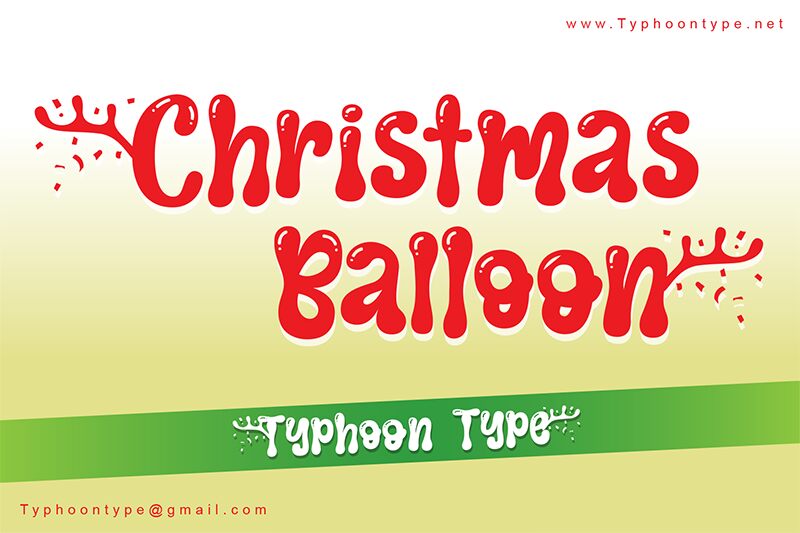
Christmas Balloon by Typhoon Type is a font that embodies the joy and excitement of the holiday season. Its bold style bursts with the charm of Christmas, offering a typographical twist that transforms text into an array of floating festive delights. Each character in this font boasts exaggerated proportions and playful shapes, reminiscent of balloons ready to soar high with holiday cheer.
Designed for those who wish to sprinkle their creative works with a dash of fantasy and fun, Christmas Balloon's lively appeal is perfect for seasonal advertising, eye-catching event invitations, or any project needing a touch of whimsy. Its suitability across digital and print mediums makes it versatile for designers aiming to infuse their work with a contemporary yet festive flair.
Incorporating Christmas Balloon into your designs promises to capture the hearts of audiences young and old. It's not just a font; it's an invitation to celebrate the magic that comes once a year, wrapped in the warmth and exuberance that only this special season can inspire.